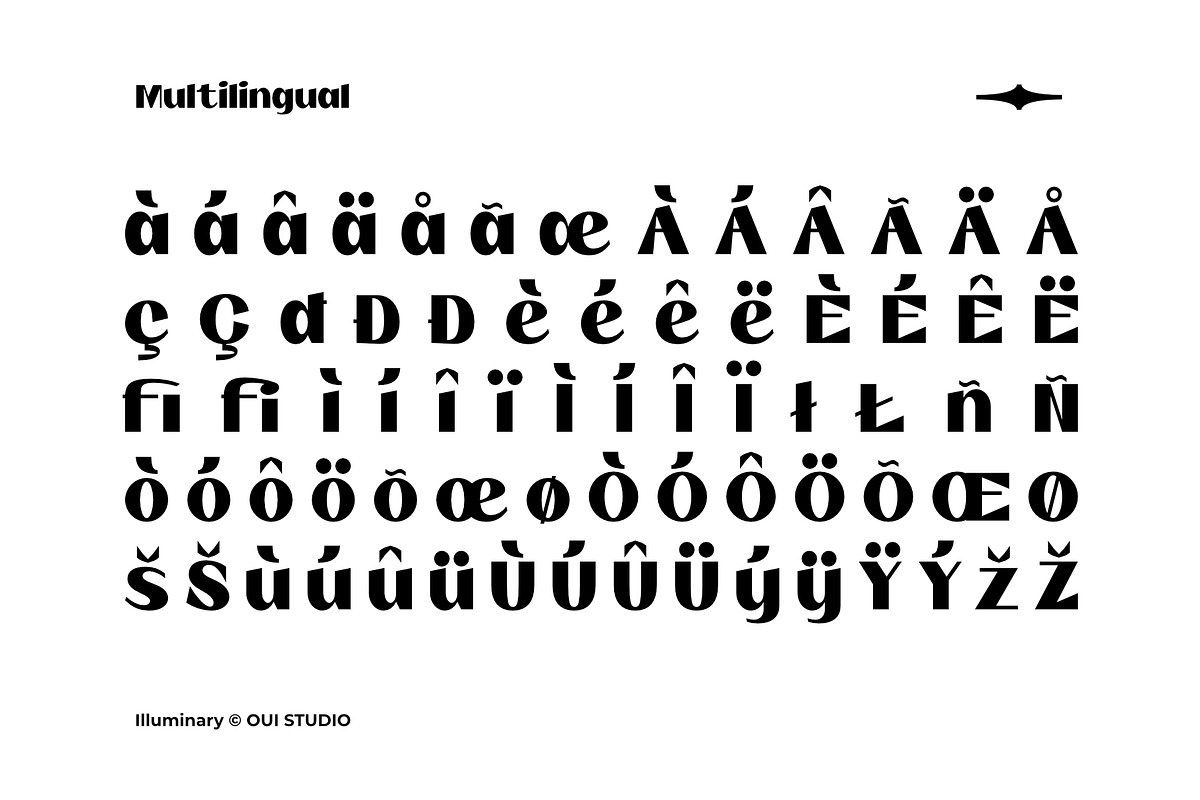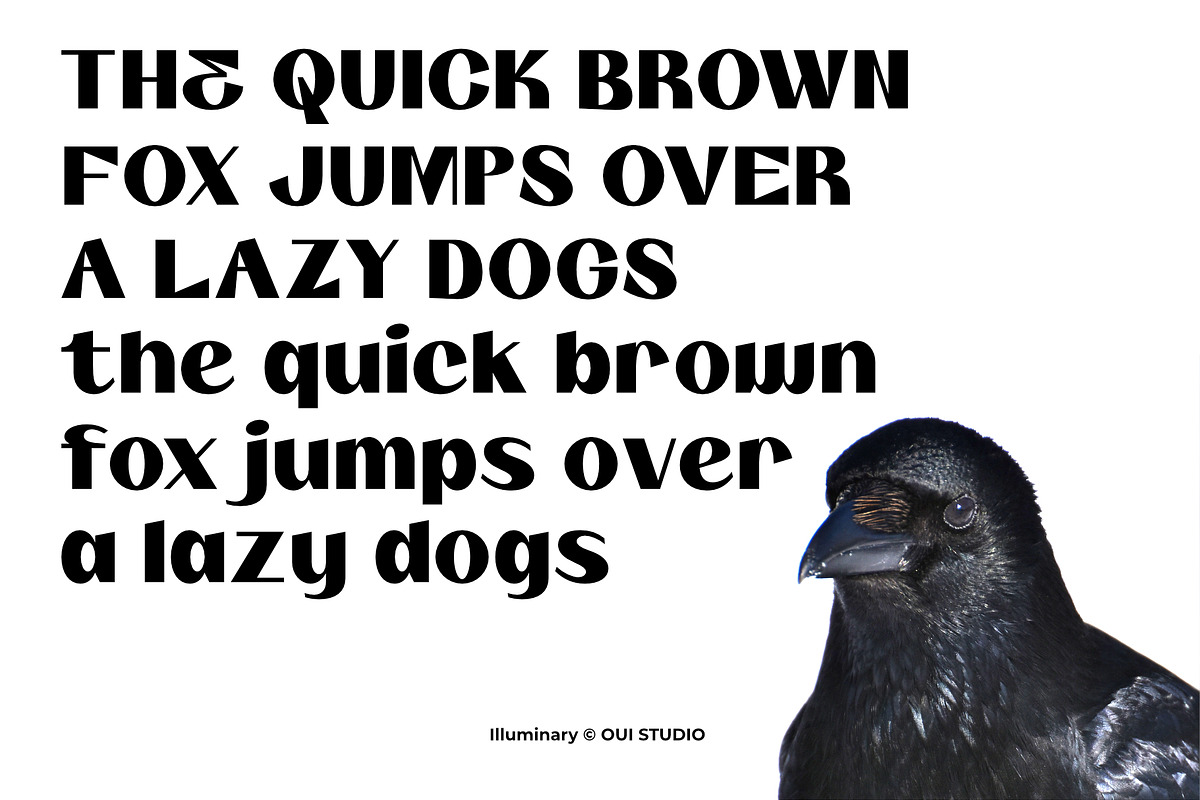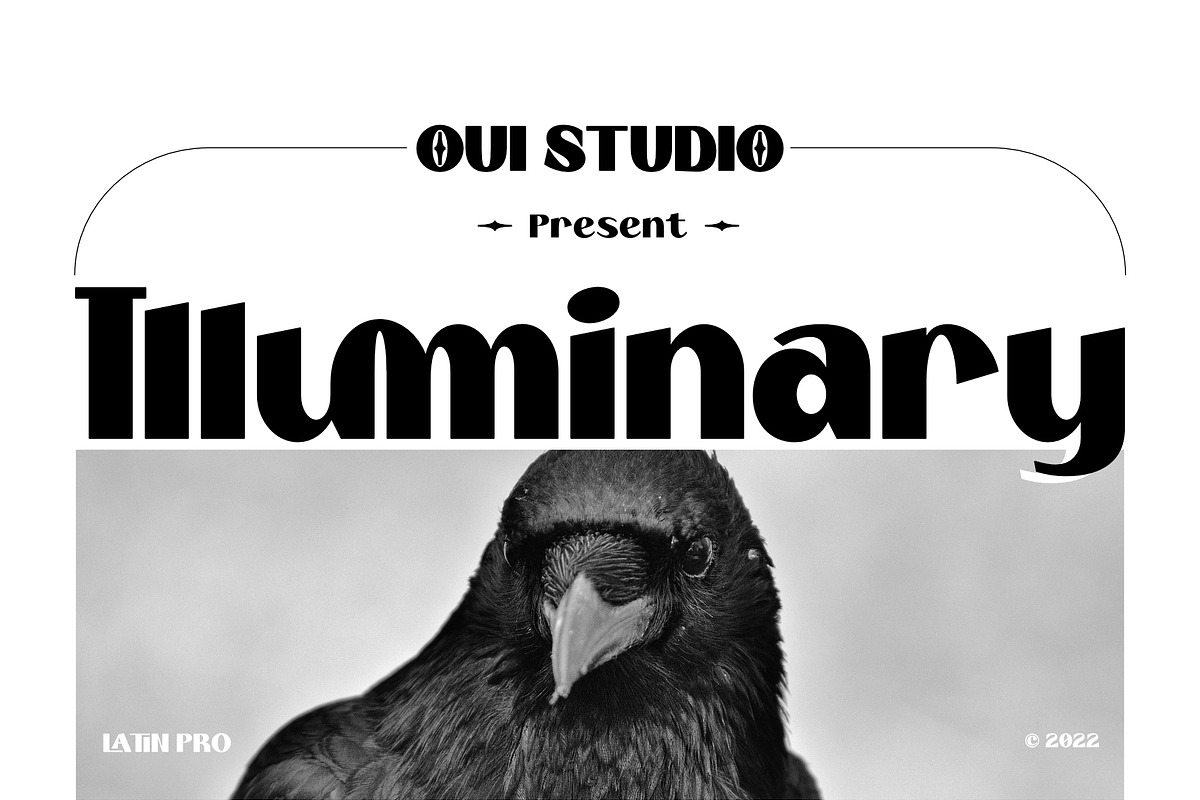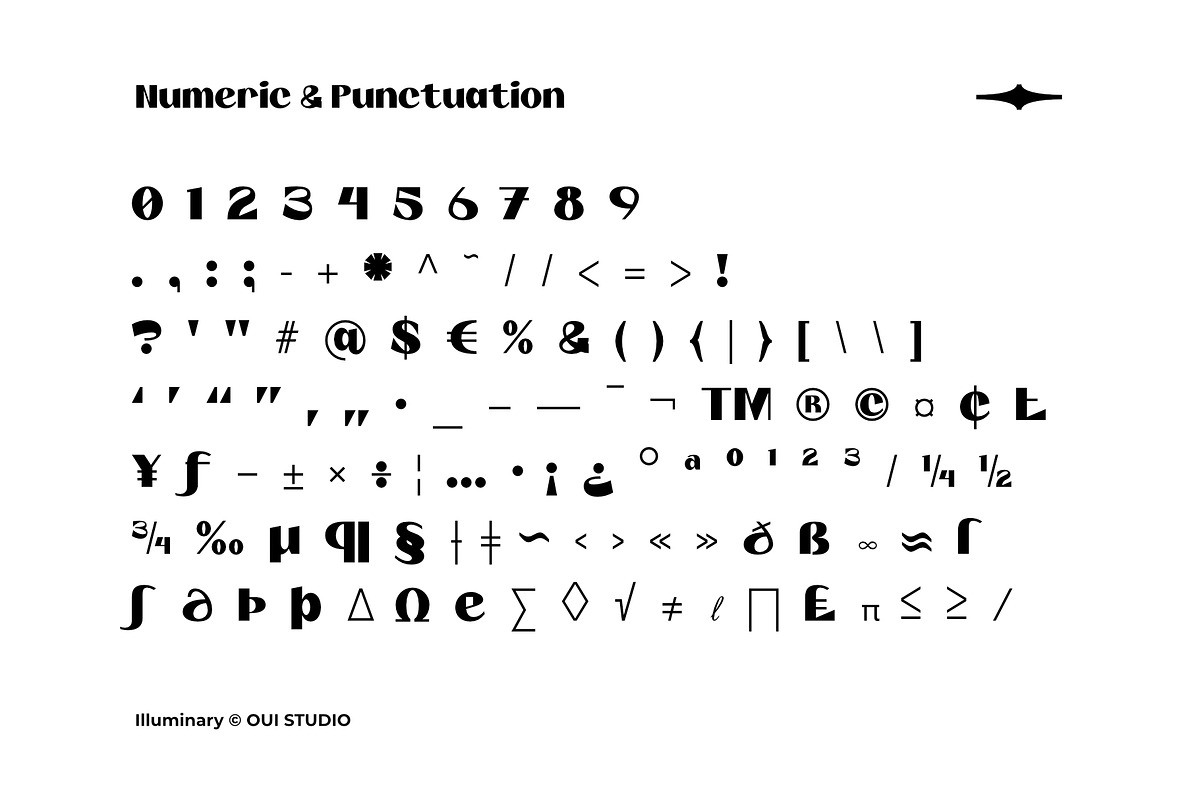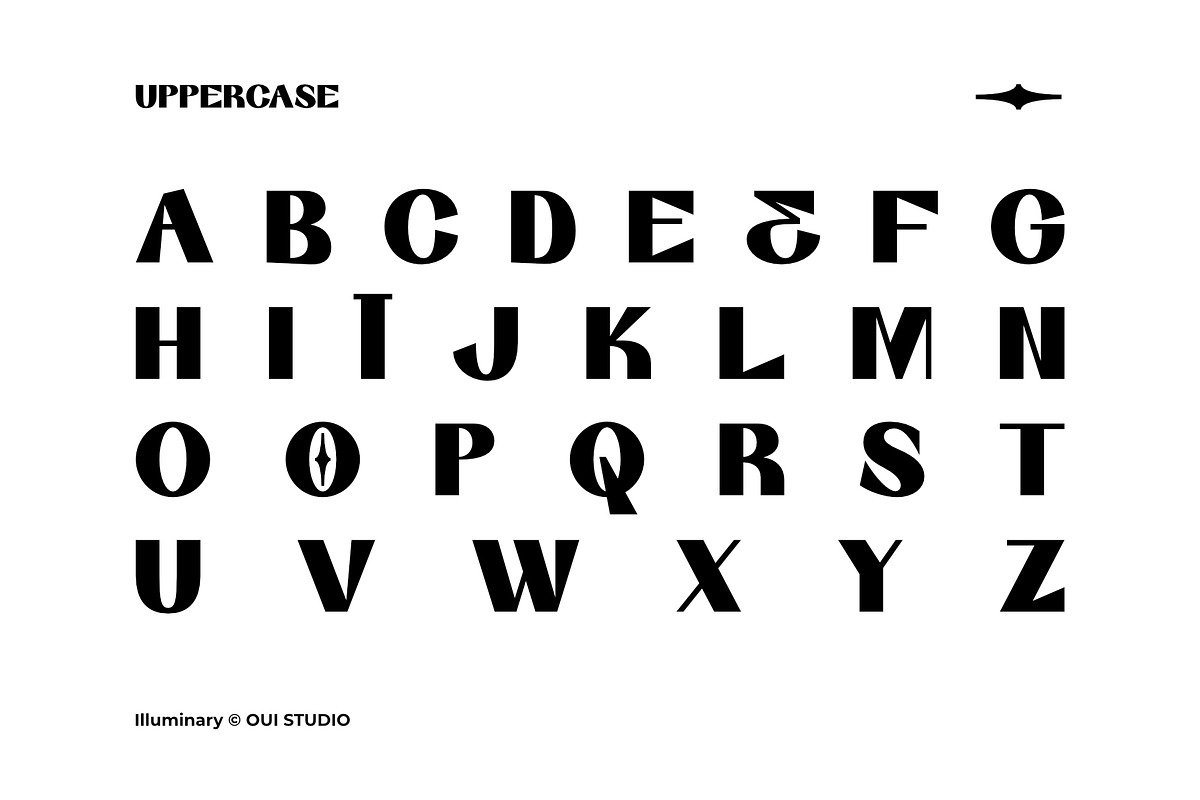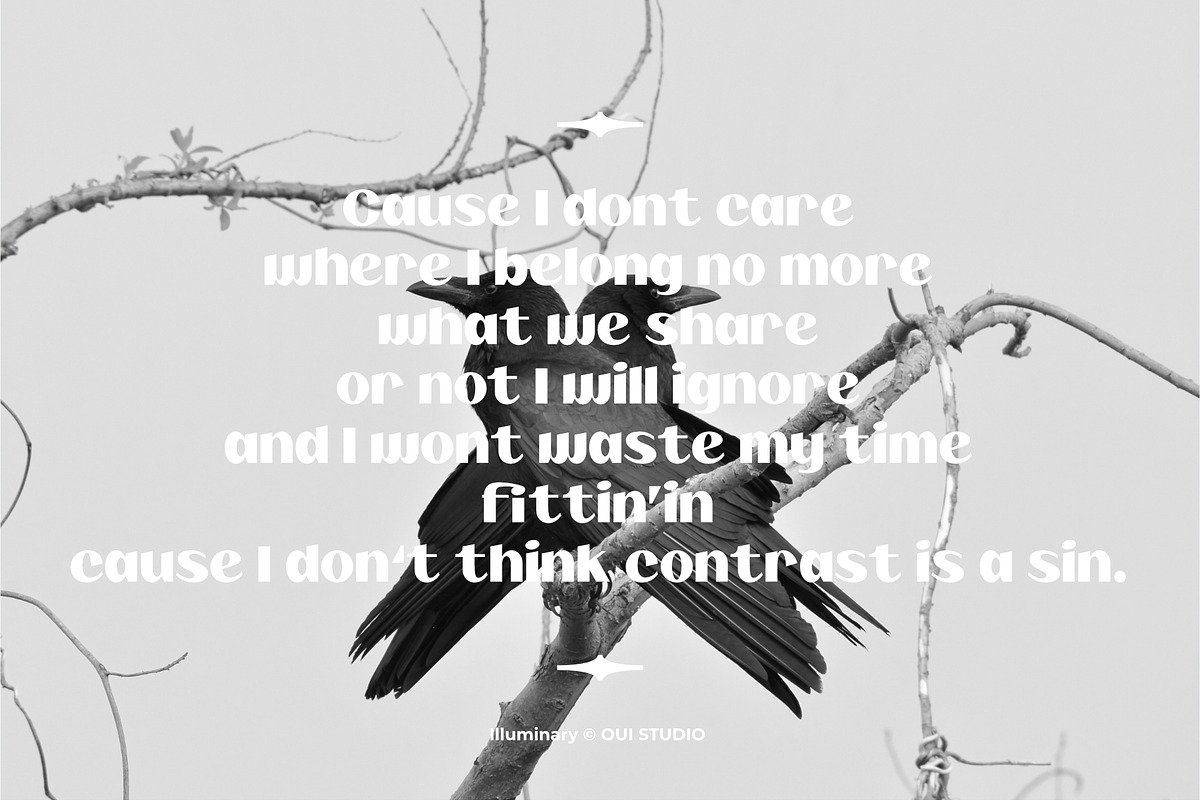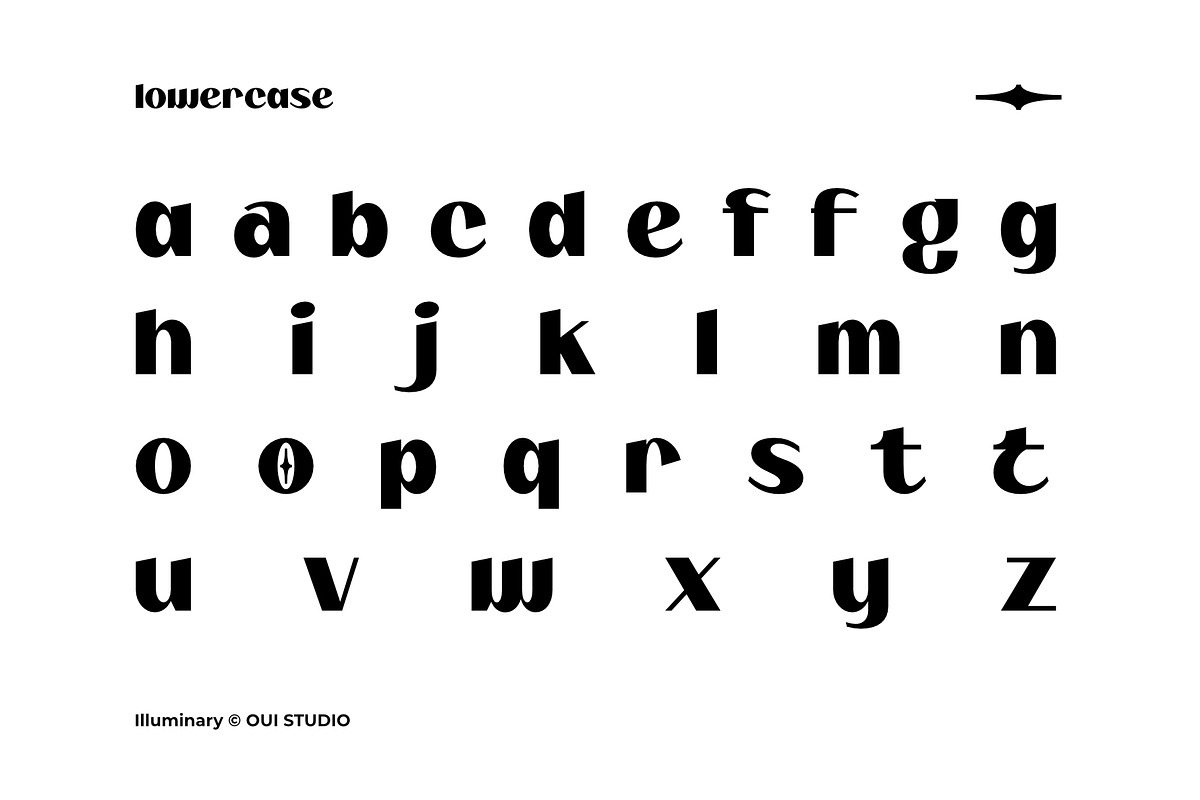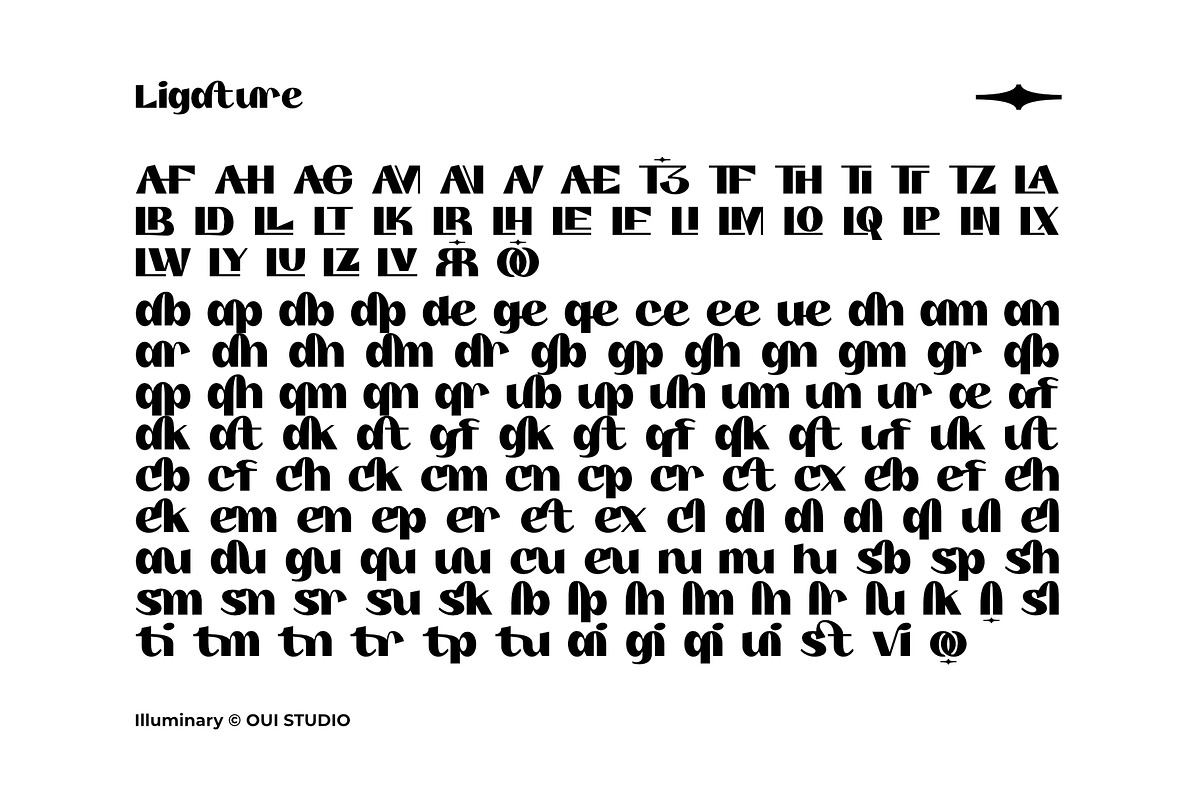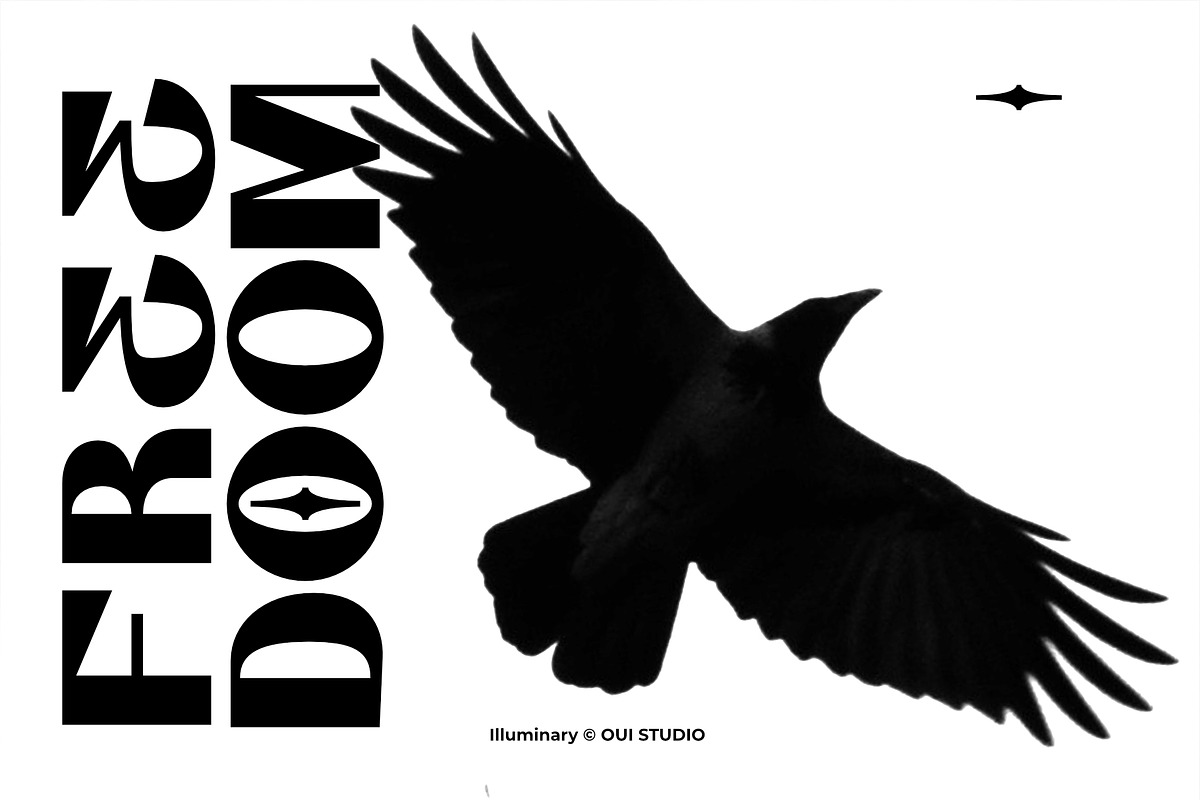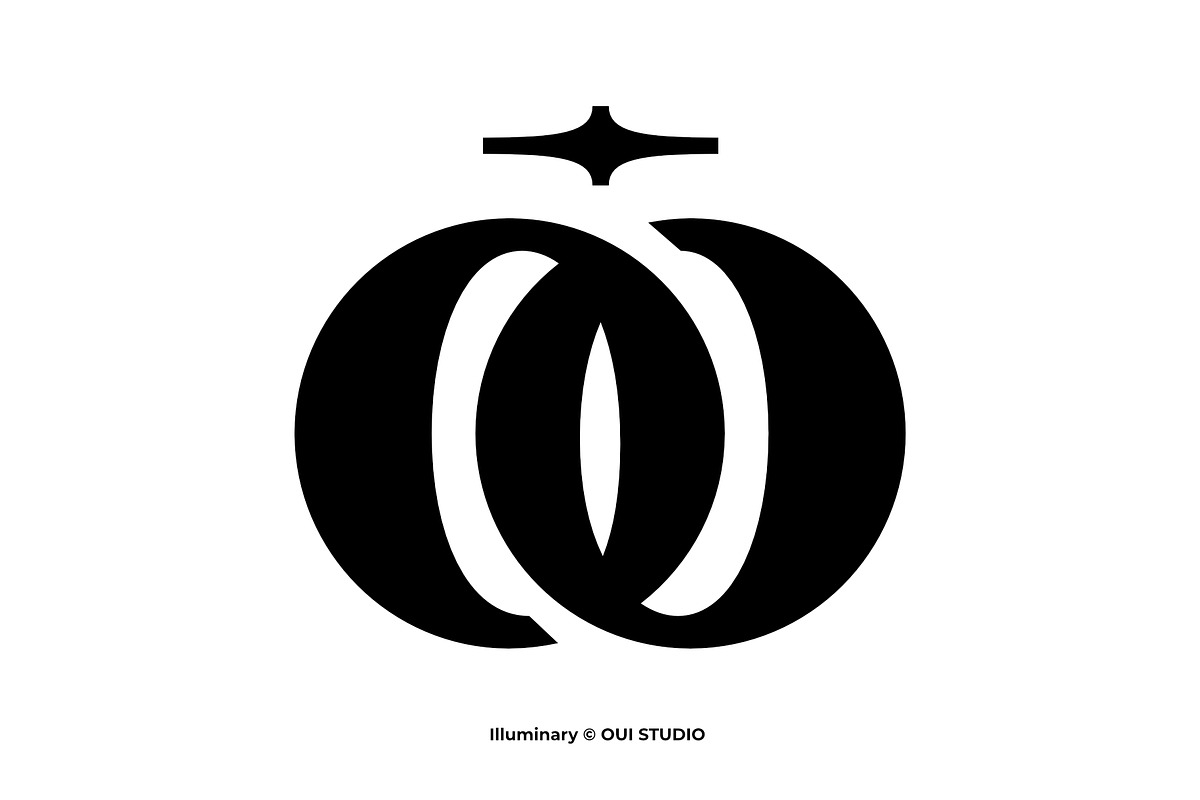
Illuminary Modern Sans Serif
Hello, friends! The 'Illuminary' font is coming, a modern sans serif. Illuminary is very inspired by a clean and modern typeface. It's perfect for branding, logo, packaging, header, title, t-shirt design, poster, band, music, album, etc. Illuminary has many varieties of ligatures, making your work more light up.